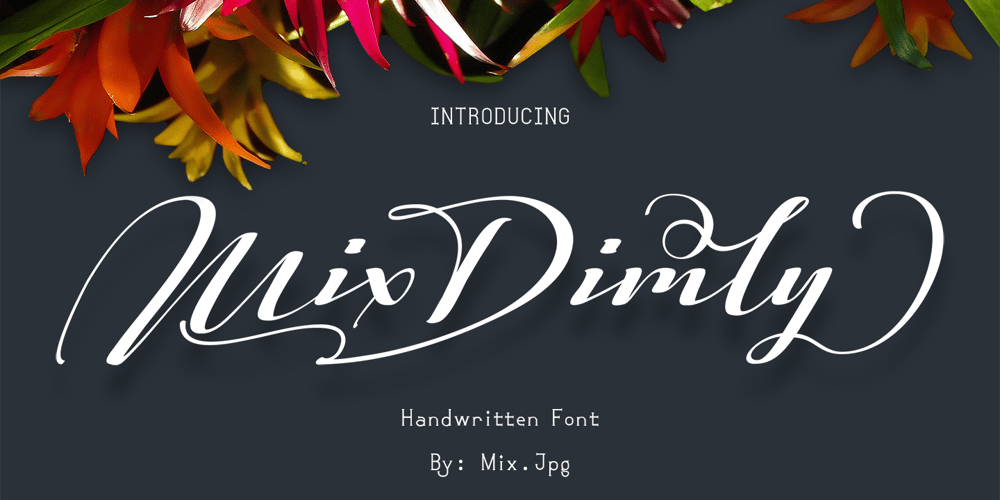
Mix Dimly Font Family was designed by Mix Jpg and published by MIX.Jpg. Mix Dimly contains 1 styles and family package options. “Mix Dimly” is a modern handwritten font with contextual alternates featur. It is perfect for branding, wedding invites and cards.“Mix Dimly” includes full set of uppercase and lowercase letters, numerals, a large range of punctuation and ligatures. All lowercase letters include ending swashes, that makes the font look fabulous! Also there are lots of stylistic alternatives, making each letter different.